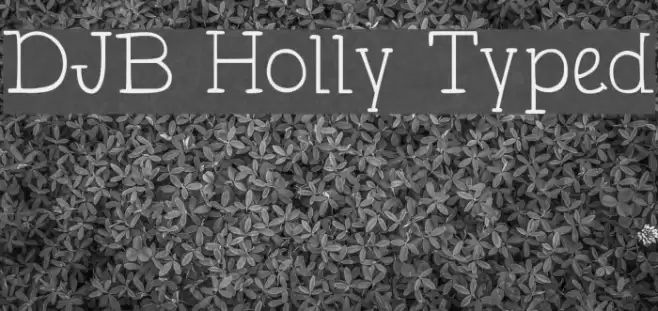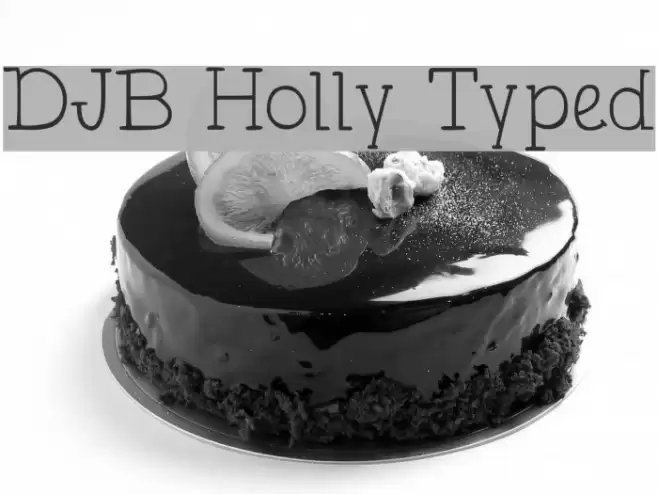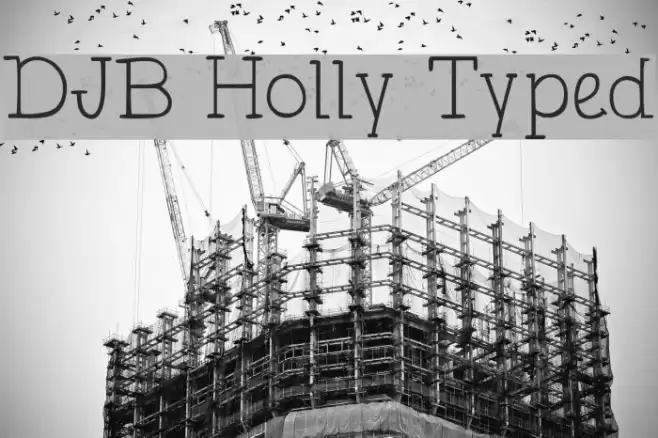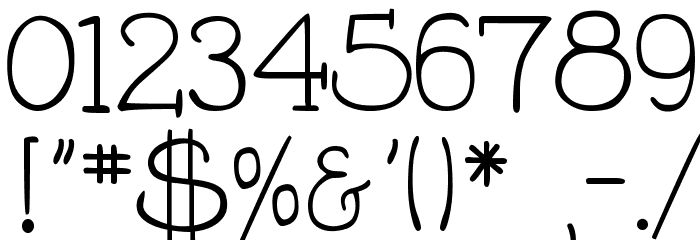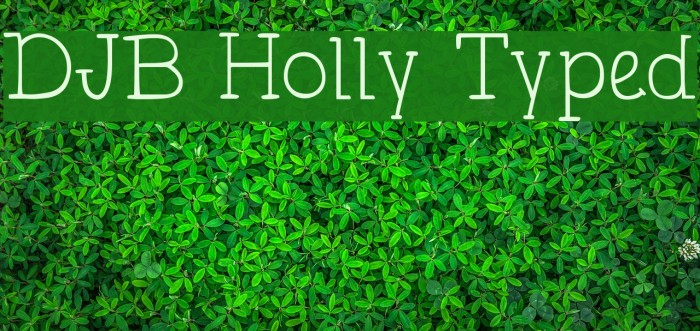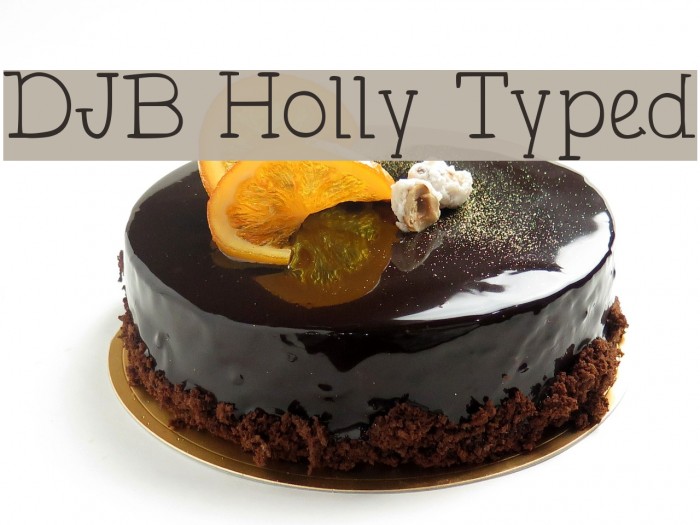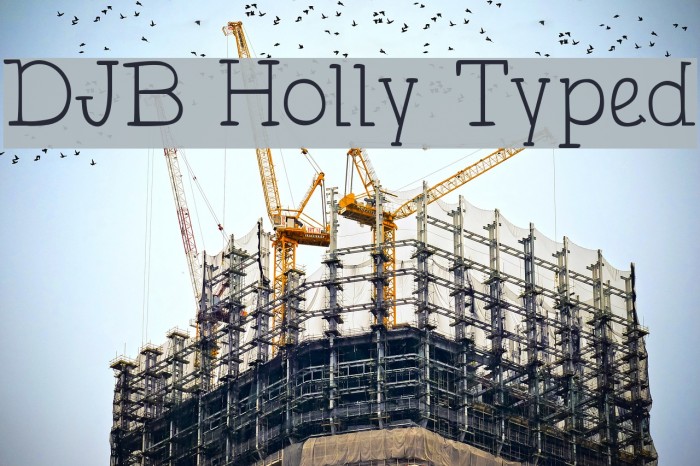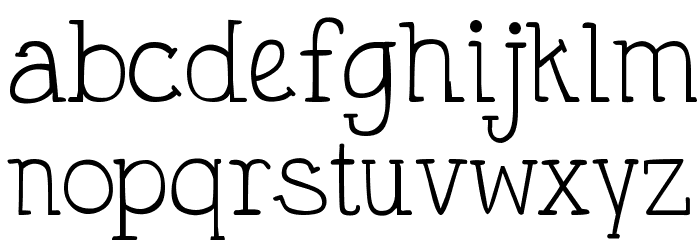
DJB Holly Typed Font
DJB Holly Typed Description
This font features a playful and handwritten style, characterized by its rounded edges and slightly irregular letterforms. The uppercase letters maintain a consistent height, while the lowercase letters exhibit a charming, casual flow. The numerals are clear and legible, with a slight quirkiness that adds to the font's overall personality. Special characters are well-integrated, maintaining the same playful aesthetic. The font's design is approachable and friendly, making it suitable for projects that require a personal touch.
A playful, handwritten style with rounded edges and casual flow from Uncategorized fonts.
- Proposed Projects: Ideal for greeting cards, children's books, personal branding, and informal invitations.
- Overall Style: Casual
- Use Case: Headlines, Logos, Informal Text